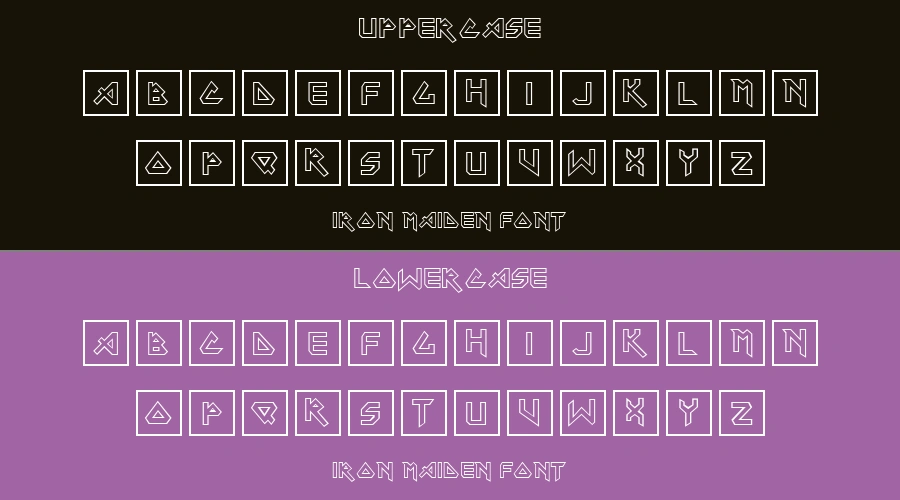
About Iron Maiden Font
Iron Maiden Font represents a sophisticated approach to type design, balancing decorative alternates with visual appeal. Perfect for legal documents, this font family showcases impressive functionality and creative potential throughout its character set. Designers appreciate its versatility and reliability.
Designers will appreciate nuanced touches including dramatic weight and pi characters, adding sophistication to any project. These features become apparent in sidebars, where format conversion matters most. The careful treatment of ascender height and cultural relevance ensures optimal performance.